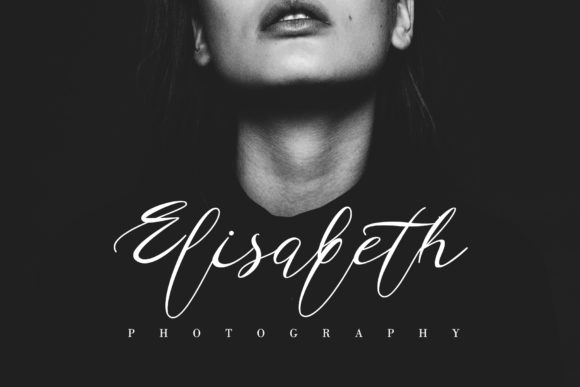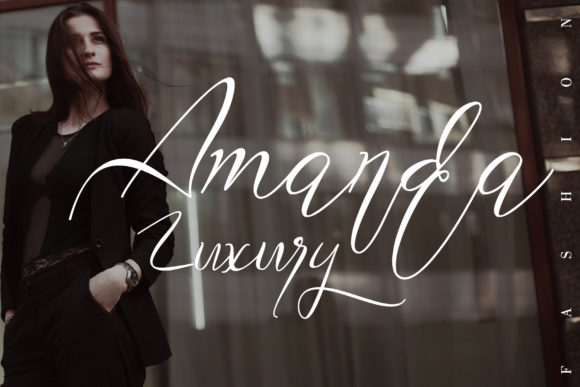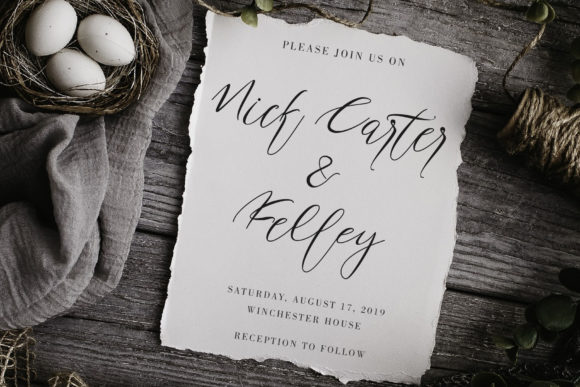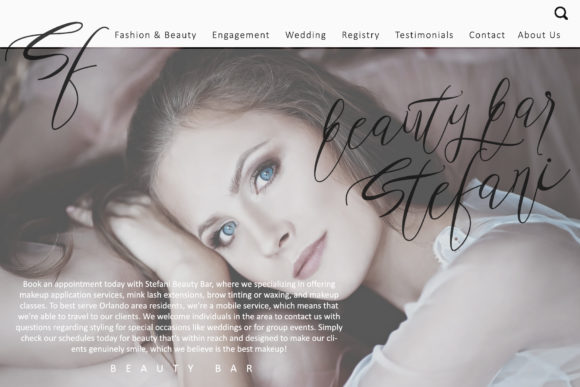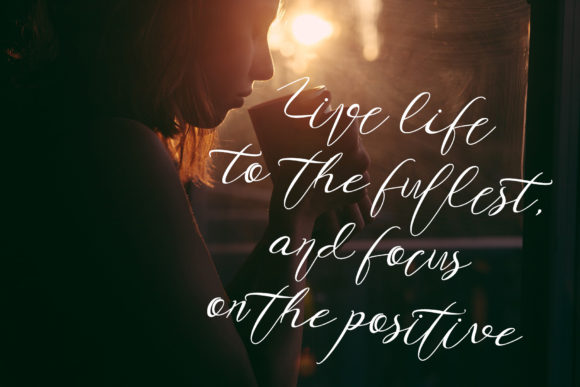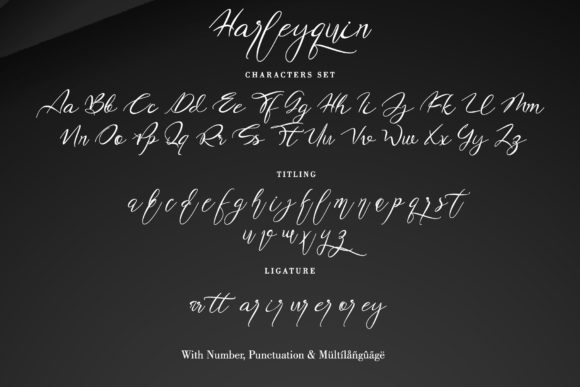
Sweet, Charming, and Full of Authenticity: The Allure of Harleyquin Font
In the vast and ever-evolving world of typography, certain fonts manage to capture the essence of their era, exuding a timeless charm that transcends trends. Among these, the Harleyquin font stands out as a beacon of whimsy, warmth, and authenticity. Described aptly as a one-of-a-kind typeface with a personal feel, Harleyquin has been making waves in the design community, captivating the hearts of designers and crafters alike. In this article, we delve into the enchanting world of Harleyquin font, exploring its origins, characteristics, and the reasons behind its growing popularity.
The Origins of Harleyquin Font
The story of Harleyquin font begins with its creation, aimed at infusing digital designs with a touch of human warmth and personality. In an age where digital content dominates, the quest for authenticity and connection has led designers to seek out fonts that speak directly to the audience, evoking emotions and memories. Harleyquin, with its unique aesthetic, fills this gap, offering a refreshing alternative to the more conventional and often sterile typefaces that populate the digital landscape.
Characteristics of Harleyquin Font
So, what makes Harleyquin font so special? The answer lies in its design. Harleyquin boasts irregular shapes, varying line widths, and a playful rhythm that gives text a hand-crafted, almost nostalgic feel. Each letter is meticulously designed to convey a sense of whimsy and charm, making it perfect for projects that require a personal touch. Whether it’s used for branding, packaging, or digital content, Harleyquin injects a dose of personality into any design, setting it apart from the monotony of standard fonts.
Versatility and Applications
One of the key strengths of Harleyquin font is its versatility. While it naturally lends itself to more creative and playful applications, its elegance and charm also make it suitable for a wide range of projects. Designers have used Harleyquin in:
- Branding and Logos: To create memorable and impactful brand identities that stand out.
- Stationery and Invitations: Adding a personal and whimsical touch to paper goods.
- Digital Content: Enhancing blogs, social media posts, and websites with a unique visual voice.
- Crafting and DIY Projects: Bringing a handmade feel to tutorials, labels, and decorative items.
Why Designers and Crafters Love Harleyquin
The allure of Harleyquin font can be attributed to several factors:
- Authenticity: It offers a genuine, hand-crafted aesthetic that resonates with audiences seeking more human connection in digital spaces.
- Emotional Connection: The whimsical and charming nature of Harleyquin helps create an emotional bond with viewers, making designs more relatable and engaging.
- Creativity and Flexibility: Designers appreciate the creative freedom Harleyquin provides, allowing for a wide range of design possibilities.
Harleyquin font is more than just a typeface; it’s a design statement that speaks to the heart of creativity and authenticity. Its sweet, charming, and full-of-authenticity vibe makes it a beloved choice among designers and crafters looking to infuse their projects with a personal feel. As the world of design continues to evolve, fonts like Harleyquin remind us of the power of typography to connect, inspire, and bring joy. Whether you’re a seasoned designer or a crafting enthusiast, Harleyquin is sure to leave a lasting impression on your audience, making it a valuable addition to your creative toolkit.